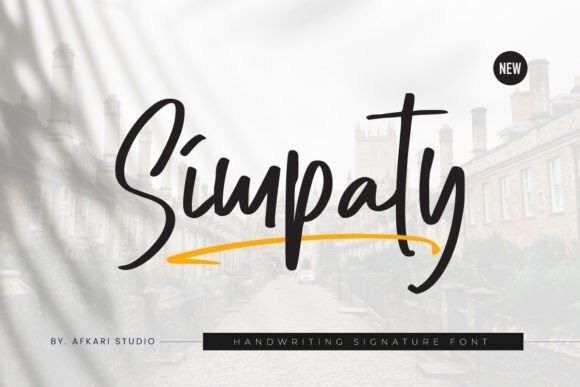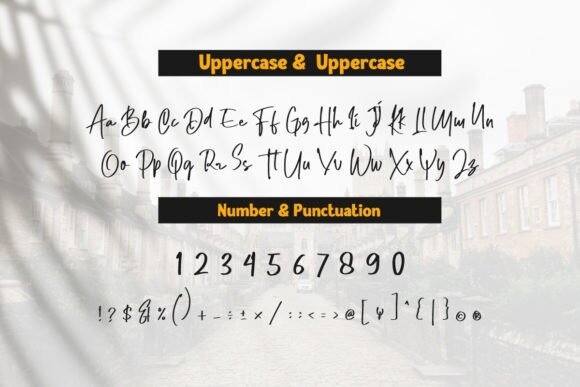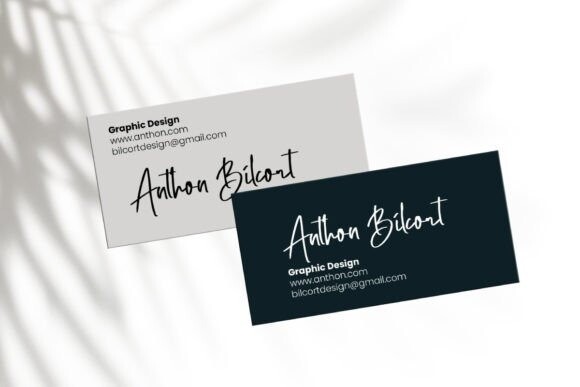
Simpaty Font
Simpaty Font – Handwritting Signature Font is a stylish and elegant typeface designed to mimic natural handwriting. The font features smooth and flowing lines, giving it an authentic and personal touch. It is a versatile font that can be used for various design purposes, such as branding projects, wedding invitations, romantic themes, studio branding, logos, social media posts, clothing designs, posters, cafe or restaurant signage, and more.